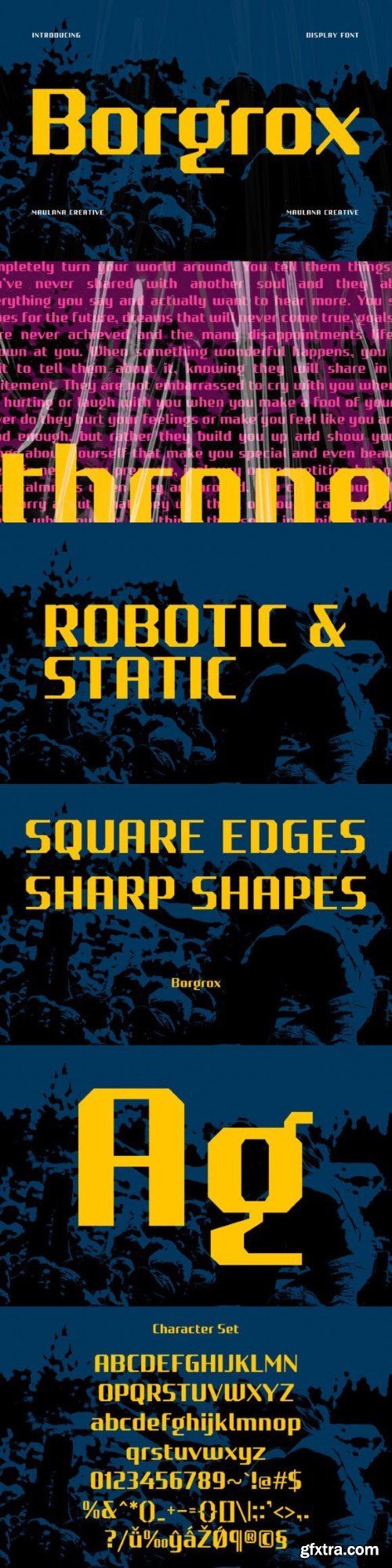
Borgrox is a distinctive squarish sans serif display typeface designed to bring a unique and playful character to your typography projects. With its regular strokes and fun design elements, along with a touch of ligatures, the font offers a balance between modern aesthetics and creative expression.
You can use it for a variety of design projects that benefit from its unique blend of features, such as headlines, titles, posters, flyers, logo designs, typography art, and product packaging.